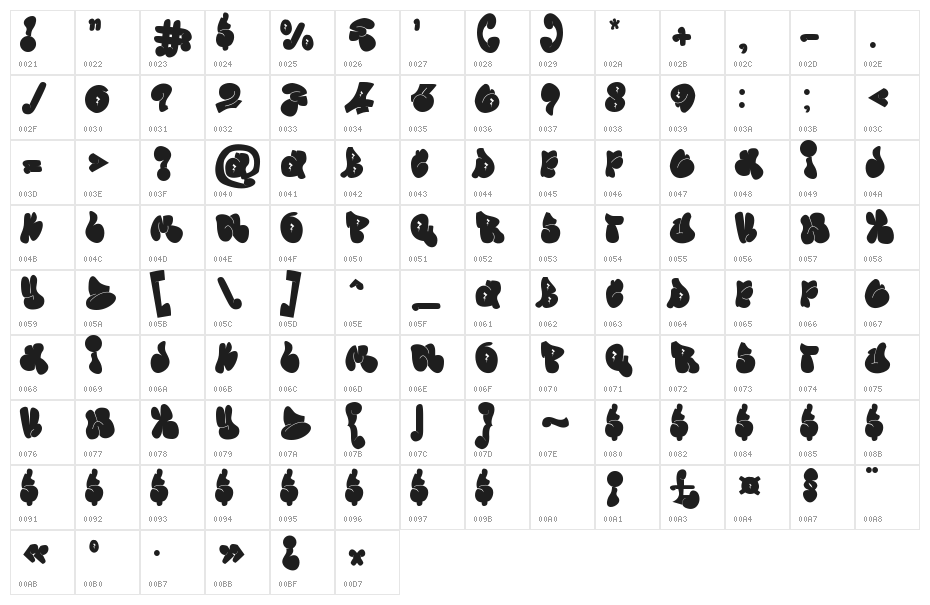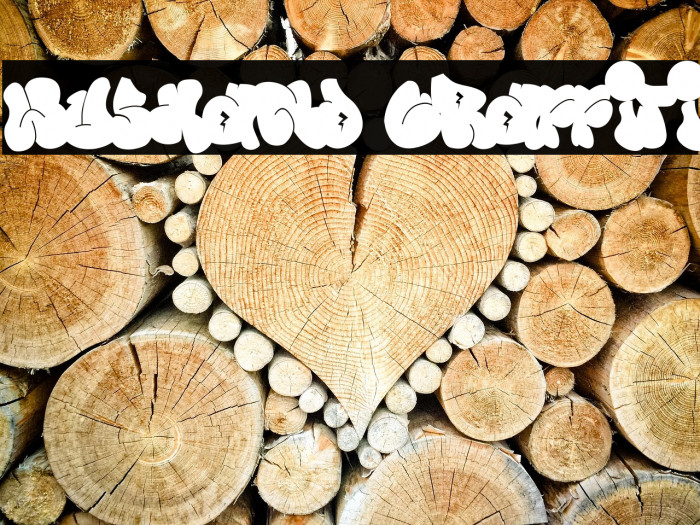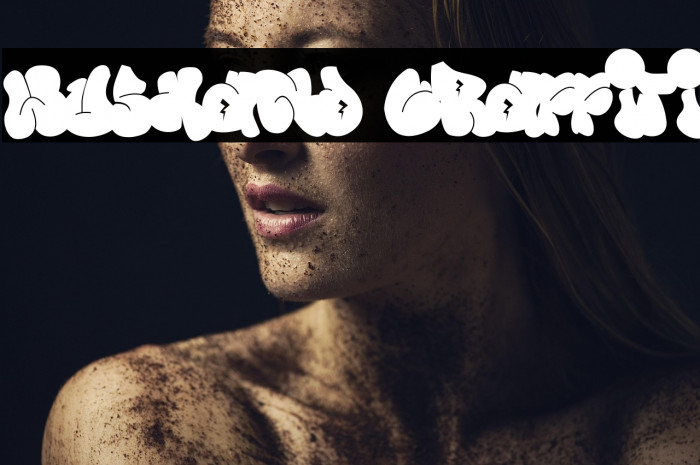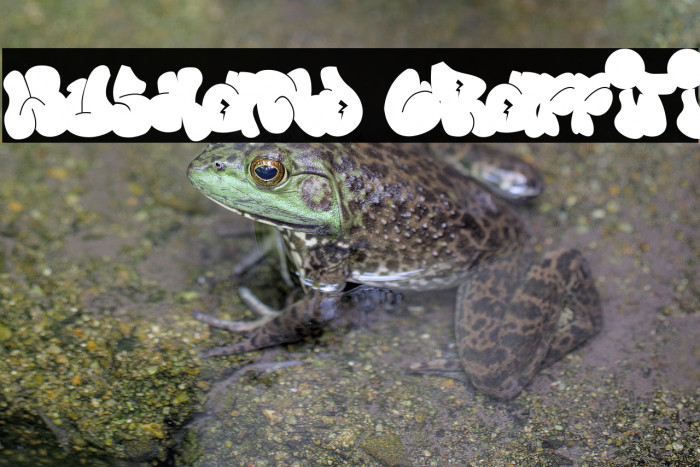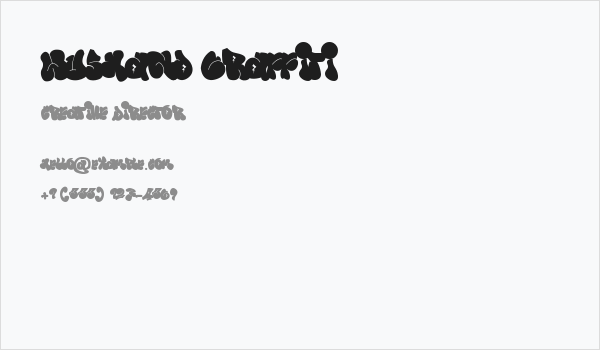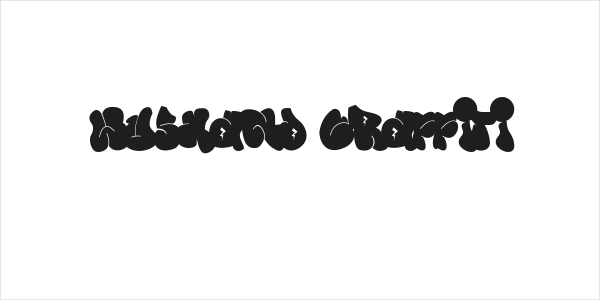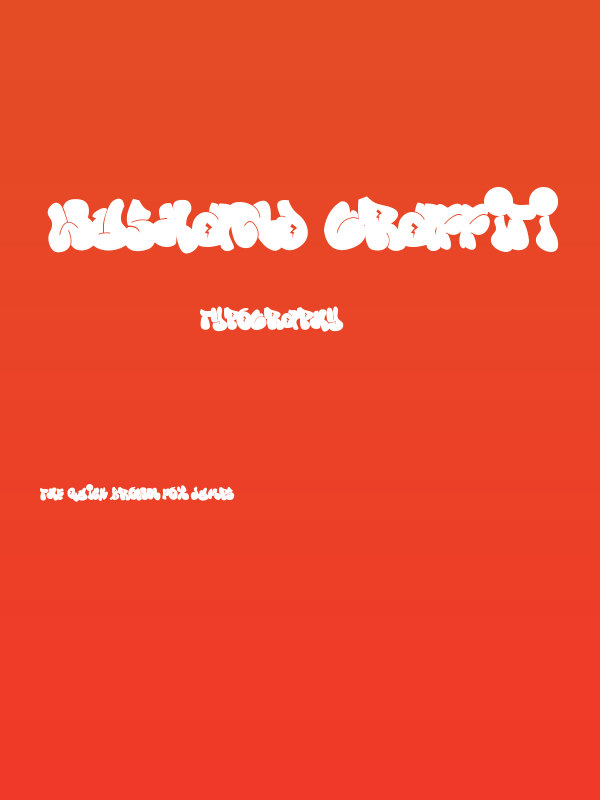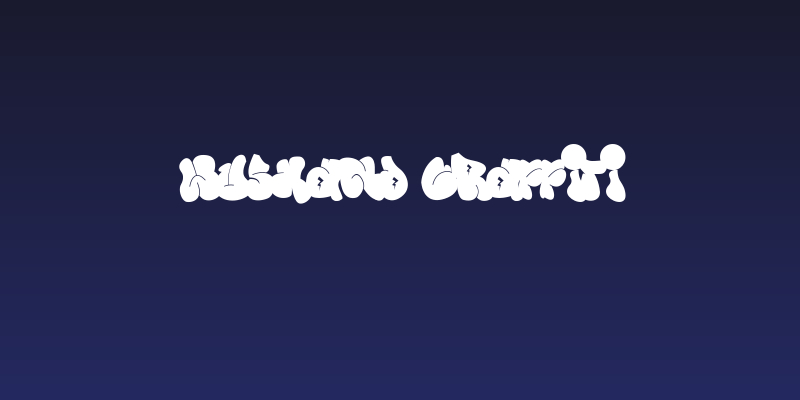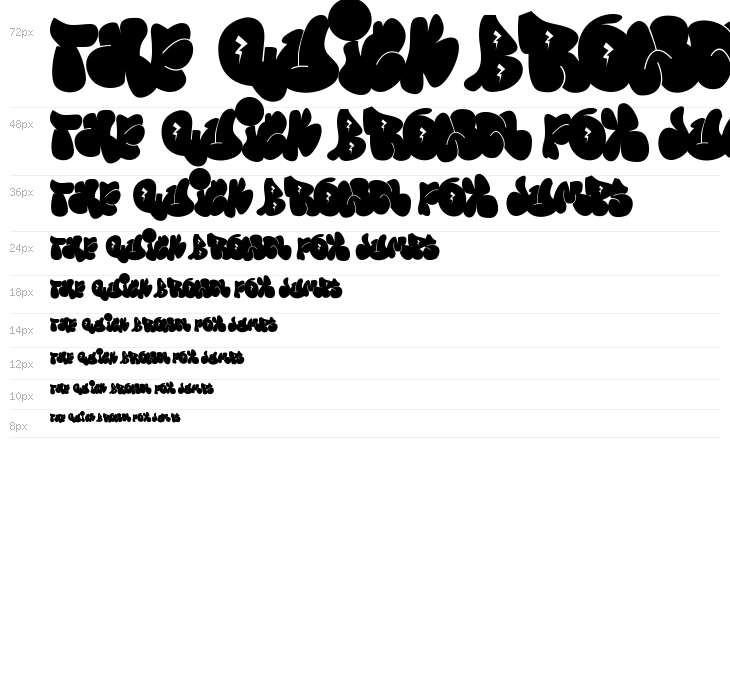
Wushand Graffiti Font
Wushand Graffiti Description
This font exudes a bold and dynamic graffiti style, characterized by its thick, rounded shapes and playful curves. The letters are heavily stylized, with exaggerated forms that create a sense of movement and energy. The font is highly decorative, with each character appearing as a unique piece of art. The overall look is urban and edgy, making it perfect for designs that aim to capture the essence of street art. The characters are tightly spaced, enhancing the compact and impactful appearance. The font's high contrast in stroke thickness adds to its visual appeal, making it stand out in any design.
| Overall Style | Urban, Edgy, Artistic |
| Use Case | Logos, Posters, Album Covers |
| Proposed Projects | Ideal for street art-inspired designs, urban-themed posters, music album covers, and edgy branding projects. |